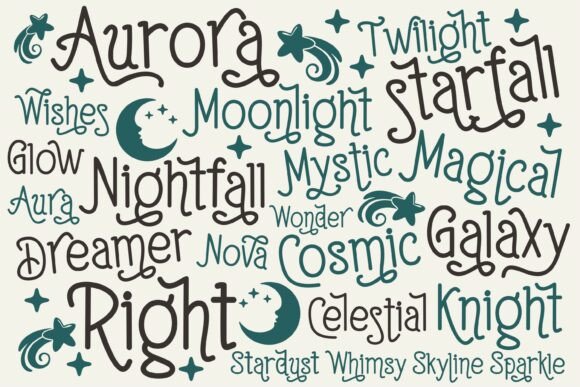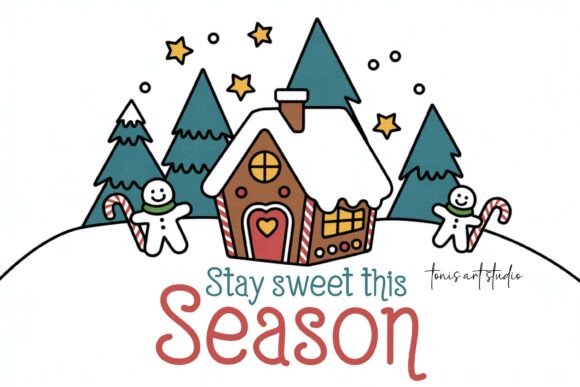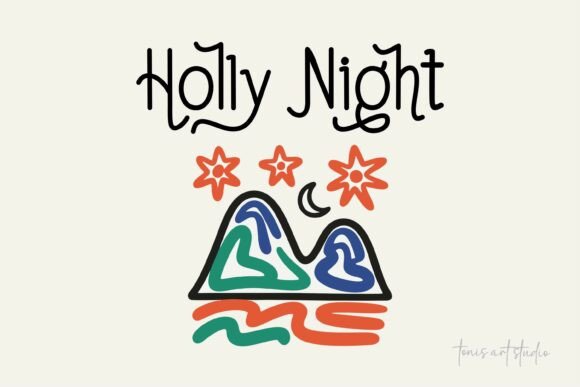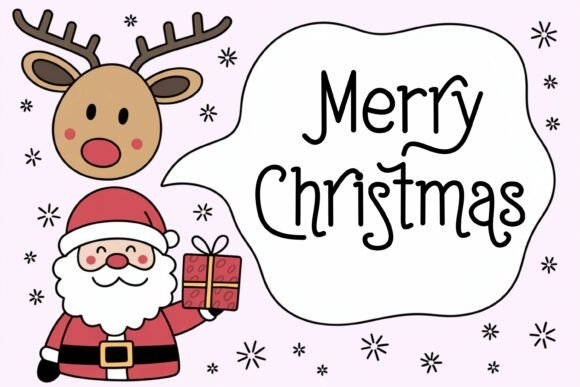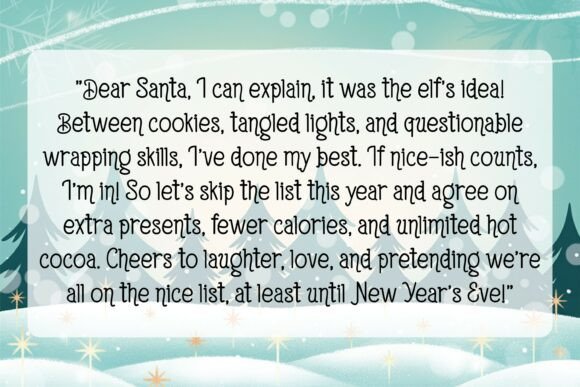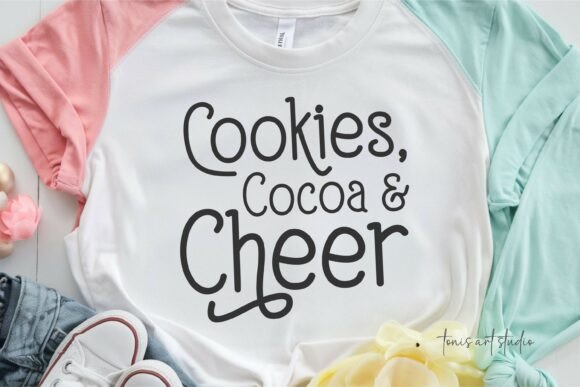
Aurora Night Font: Add a Touch of Magic to Your Designs
Introducing Aurora Night, a delightful handwritten display font that will transport your designs to a world of wonder and enchantment. Inspired by the twinkling stars, gentle moonlight, and dream-filled nights, this font is perfect for craft projects that require a romantic, star-studded vibe.
The Charm of Aurora Night
Aurora Night is a beautifully crafted font that boasts intricate curls, dynamic swishes, and a tender, whimsical look. Its unique design makes it an ideal choice for designers and crafters who want to add a touch of magic to their creations. Whether you’re working on a Christmas illustration, a magical bedtime tale, or an adorable character drawing, Aurora Night is sure to infuse your designs with warmth, character, and a bewitching radiance.
Versatile Styles for Endless Applications
Aurora Night comes in two versatile styles: Regular and Lite. This means you can use it for a variety of applications, from light and feathery designs to those requiring a bolder, more dramatic textual presence. The Regular style is perfect for designs that need a bit more emphasis, while the Lite style is ideal for more subtle, elegant creations.
Perfect for Cricut and Silhouette Enthusiasts
Aurora Night is a dream come true for Cricut and Silhouette enthusiasts. Its intricate design and versatile styles make it perfect for cutting machines, and its compatibility with various software ensures seamless integration into your design workflow.
Sublimation Design, Stickers, and More
Aurora Night is also perfect for sublimation design enthusiasts, sticker creators, and anyone working with children’s prints, nursery themes, logos, greeting cards, planners, quotes, labels, and KDP interiors. Its whimsical design and enchanting charm make it an excellent choice for festive artwork, holiday projects, and everyday designs.
With Aurora Night, the creative possibilities are endless. Use it to create:
• Magical bedtime tales and children’s illustrations
• Christmas and holiday-themed designs
• Adorable character drawings and nursery themes
• Festive artwork and party decorations
• Stickers, labels, and other craft projects
• Logos, branding, and packaging designs
• Greeting cards, planners, and stationery
Why Choose Aurora Night?
Aurora Night offers a unique combination of style, versatility, and charm that sets it apart from other fonts. Here are just a few reasons why you should welcome Aurora Night into your toolbox:
• Unique, handwritten design with intricate curls and swishes
• Two versatile styles: Regular and Lite
• Perfect for Cricut, Silhouette, and sublimation design
• Compatible with various software and design tools
• Enchanting charm and whimsical look
• Endless creative possibilities
Get Ready to Shine with Aurora Night
Aurora Night is more than just a font – it’s a design experience. With its magical charm, versatile styles, and endless creative possibilities, it’s the perfect addition to any designer’s or crafter’s toolbox. So why wait? Get ready to shine with Aurora Night and bring a touch of wonder and enchantment to your designs.